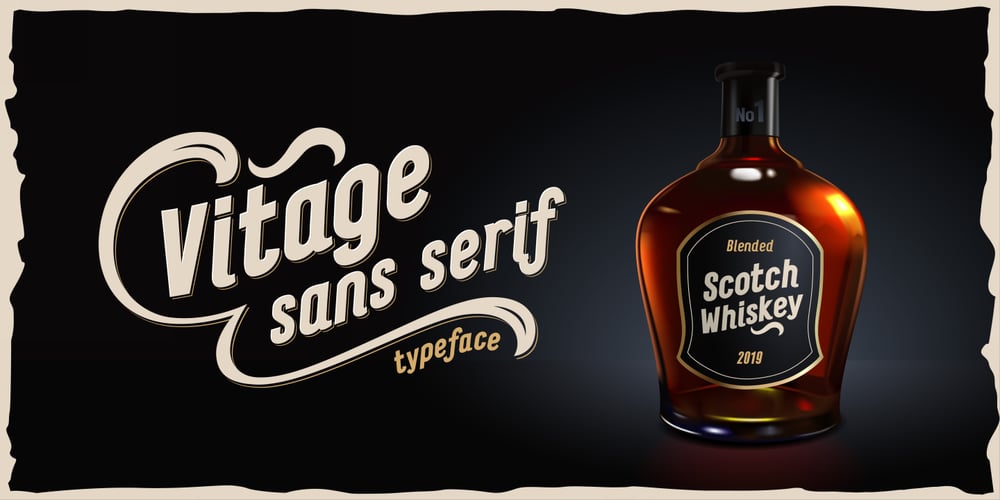
Vitage Font Family was designed by Evgeny Dneprovsky and published by Fractal Font Factory. Vitage contains 4 styles and family package options. This sans-serif type family of two weights plus matching italics. Influenced by the geometric-style sans serif faces that were popular during the 1920s and 30s, the fonts are based on geometric forms that have been optically corrected for better legibility. Vitage has a functional look with a warm touch. It is manually hinted and optimized for screens, so it will be a good choice for Websites, eBooks or Apps.